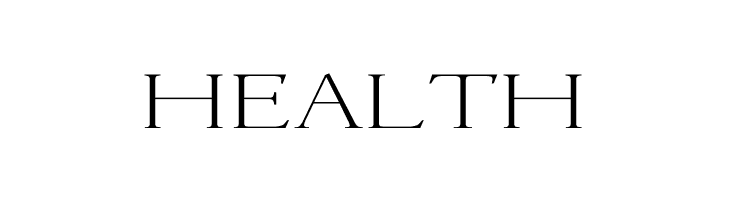
A classic serif font with elegant, flowing lines and medium contrast.
A sophisticated serif font with medium weight and italic style, featuring high contrast strokes.
A bold, condensed font with uniform strokes and a modern, impactful style.
An elegant, italic serif font with classic styling and graceful curves.
A bold, classic serif font with strong, elegant strokes.
A bold, geometric typeface with a condensed structure, ideal for impactful headlines.
A bold, narrow font with high contrast, perfect for impactful headlines.
A bold serif typeface with strong, high-contrast strokes and pronounced serifs.
An elegant and ornate script font with flowing, cursive letterforms.
A bold, geometric font with strong, impactful letterforms.
A classic serif font with elegant strokes and balanced proportions.
A classic serif font with high contrast and sharp serifs, exuding elegance and formality.
A bold, chiseled serif font with a three-dimensional, engraved appearance.
An elegant and modern font with tall, slender characters and artistic strokes.
A bold serif font with strong strokes and elegant serifs, perfect for impactful headlines.
A modern, expanded sans-serif font with uniform strokes and a professional appearance.
A classic serif font with elegant, medium-contrast strokes.
A bold, impactful font with strong, thick strokes and a slight curvature for added softness.
A whimsical and decorative font with intricate swirls and curls.
A modern blackletter font with intricate, ornate letterforms and a blend of historical and contemporary styles.
A bold, geometric sans-serif font with a modern look.
A classic serif font with an elegant italic style, perfect for refined and sophisticated designs.
A classic serif font with a modern outline design, offering elegance and readability.
A futuristic, geometric font with open, hollow letterforms and sharp angles.
A bold, classic serif font with strong serifs and medium contrast.
A classic serif font with a hand-tooled, italicized style, offering elegance and readability.
A bold, italic swash font with classic elegance and decorative flair.
A classic serif font with elegant, sharp lines and balanced proportions.
A classic serif font with elegant and refined letterforms.
A classic serif font with elegant curves and medium contrast.
A bold, authoritative font with strong strokes and elegant curvature.
A bold, classic serif font with strong strokes and sharp serifs.
A bold, decorative font with high contrast and intricate detailing.
An elegant serif font with a classic old-style italic design, featuring high contrast and refined serifs.
A bold, rounded sans-serif font with smooth curves and uniform stroke width.